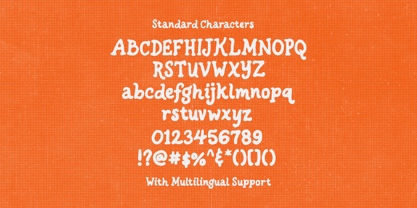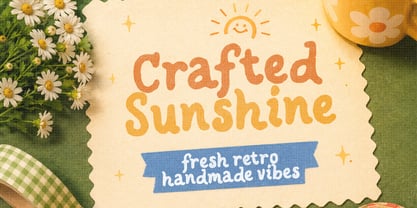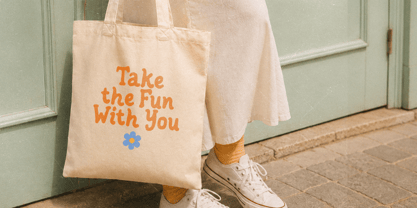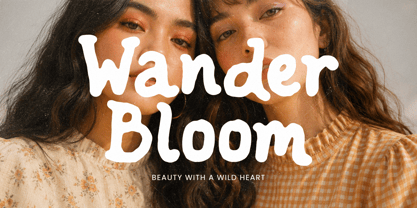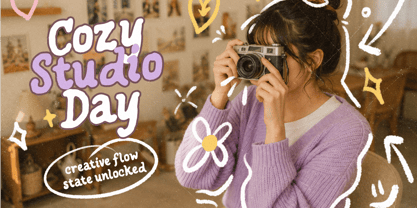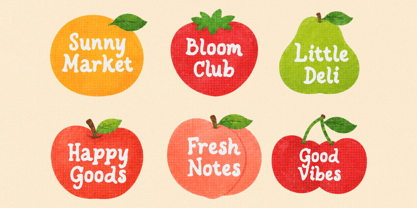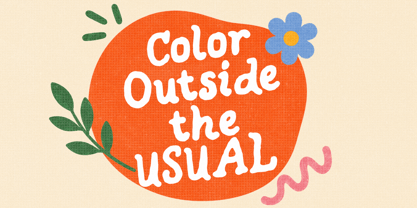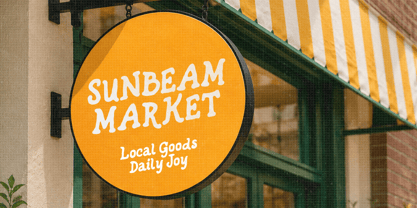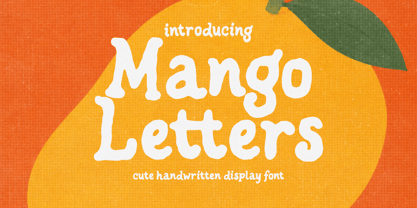
RT Mango Letters
by Rillatype
The RT Mango Letters Font Family was designed by Gustian Agung Asprilla and published by Rillatype. RT Mango Letters contains 1 styles. More about this family
Mango Letters is a handwritten typeface with an organic flow and an approachable, cute aesthetic. Characterized by natural, human-centric strokes and a whimsical rhythm, it is ideal for boutique branding and products needing a personal, handmade touch. Its expressive letterforms provide a high-personality alternative to traditional scripts, offering a sweet and organic visual voice.
Designers: Gustian Agung Asprilla
Foundry: Rillatype